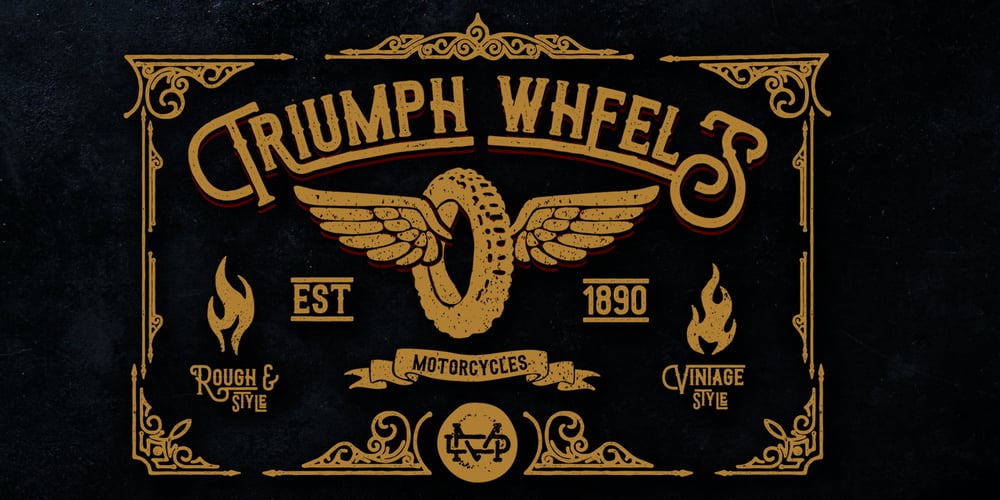
Triumph wheels Font Family was designed by Suandana ipandemade and published by madeDeduk. Triumph wheels contains 2 styles and family package options. Triumph Wheels is inspired from American fonts with a cool character! There are more than 350 glyphs included in this font. Triumph Wheels is perfect for poster design, book covers, merchandise, fashion campaigns, newsletters, branding, advertising, magazines, greeting cards, album covers, and quote designs and more. Feature – Uppercase – lowercase – Number & Symbol – International Glyphs – Alternative Uppercase – Alternative lowercase – Ligatures – Swashes If you need anything else just shoot me an email at: dedukvic@gmail.com